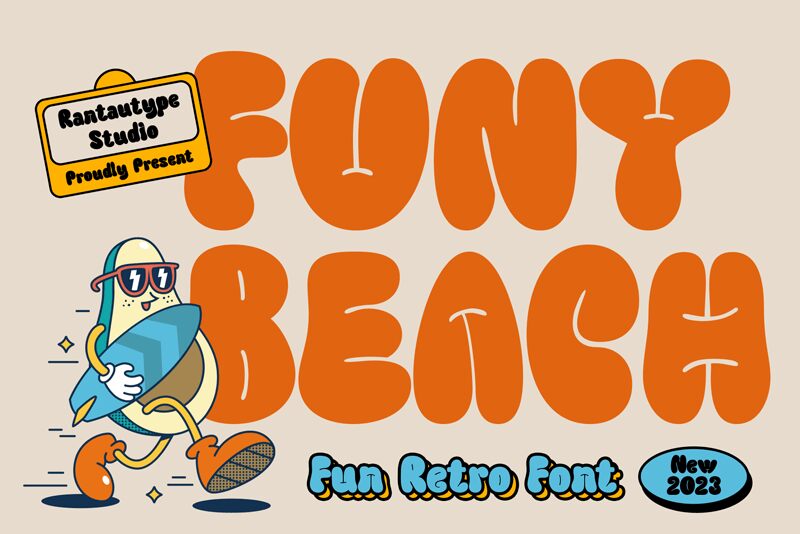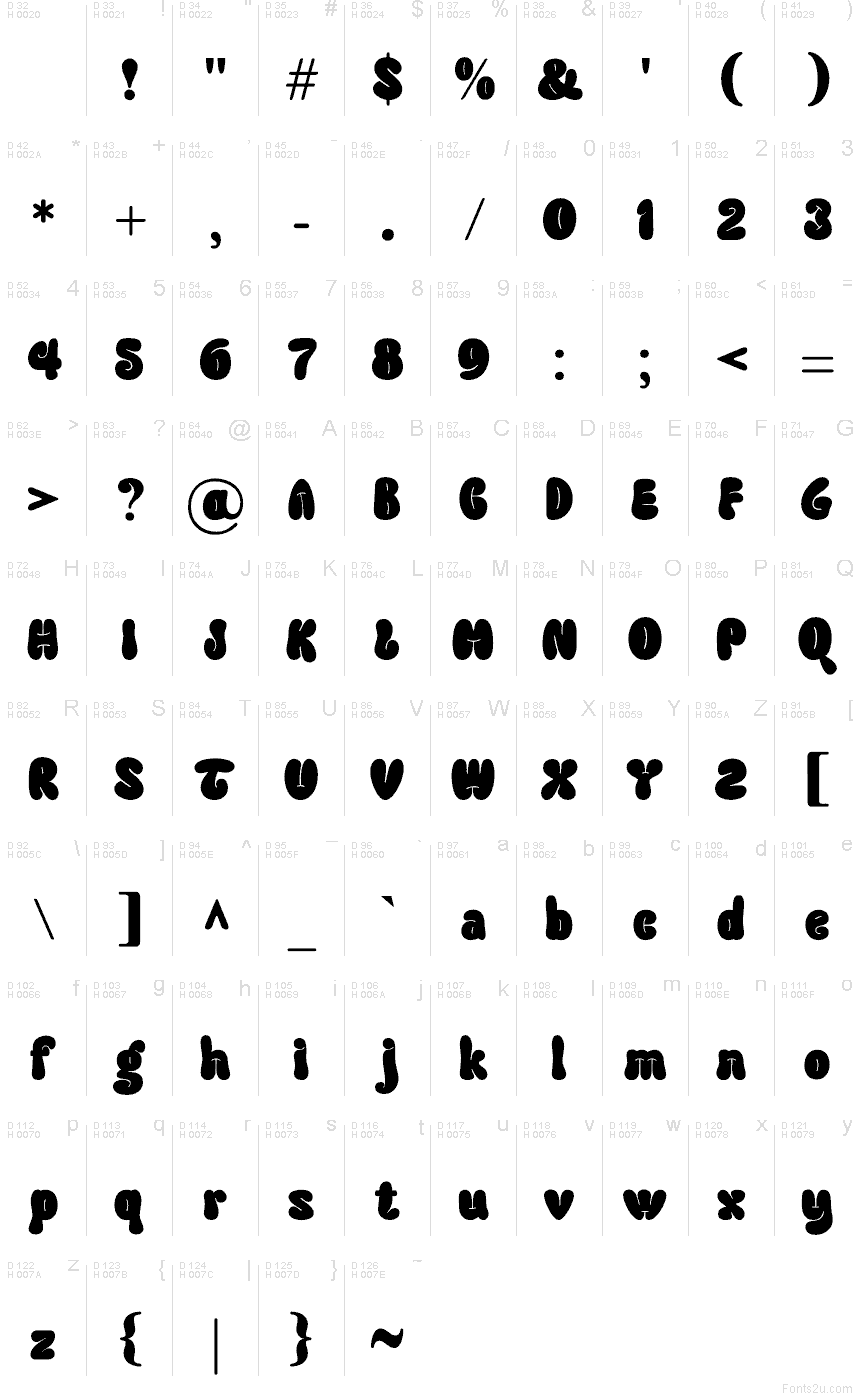
Funy Beach
Funy Beach font by Yudi Pratama Chandra of RantauType is a free groovy font, and its personality hits like thick, inky foam lettering stamped onto a surf poster. The shapes are extra puffy and rounded, with a bouncy rhythm that feels hand-scooped and carefree, yet still reads fast at a glance. It’s the kind of typeface that turns plain words into sunshine.
Using Funy Beach, you’ll get instant lift on summer branding, beach-party flyers, ice-cream or café menus, kids’ packaging, sticker sheets, social posts, and playful merch like tees and totes. Keep it large so the chunky curves can breathe, and pair it with a clean, simple sans for any supporting details. This free font shines most when you let the black shapes sit bold against bright, warm colors.